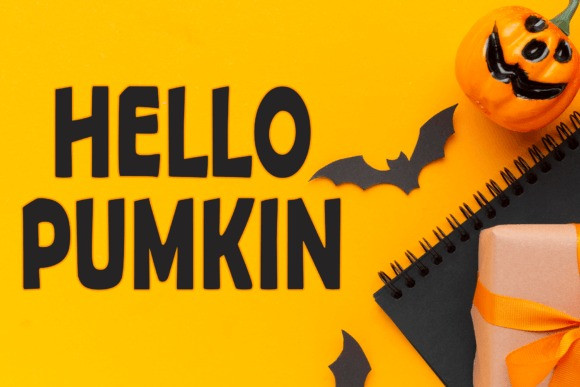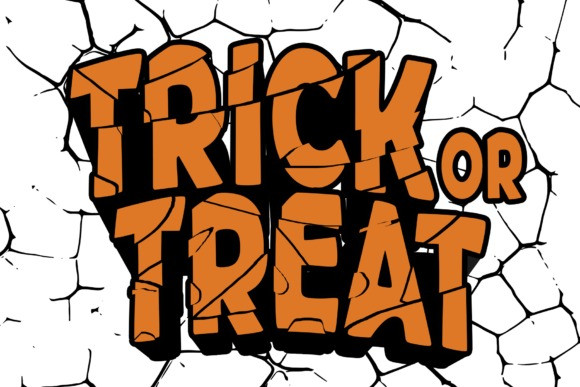
Trick Or Treat Typeface
Trick Or Treat Typeface is a cool and modern display font. Whether you’re using it for crafts, digital design, presentations, or creating greeting cards, this font has the potential to be your go-to font, whatever the occasion.